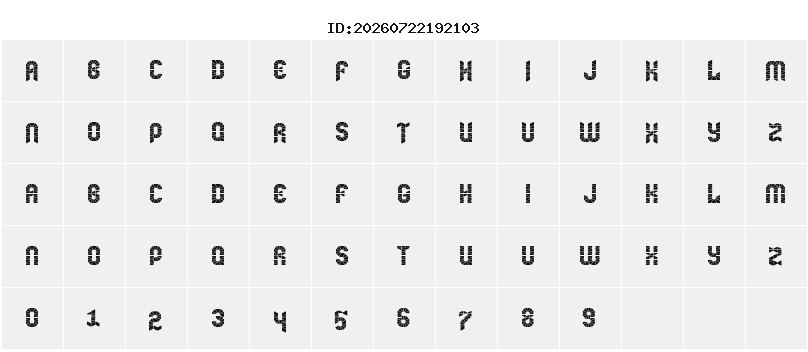
• Font Name: mummification
• Designer: Wilson Thomas
• Description: This font was created using FontStruct (http://fontstruct.fontshop.com)
About mummification.ttf
mummification.ttf is a modern, elegant sans-serif font designed for ultimate readability and visual harmony. Perfect for branding, headlines, web design, and print materials.